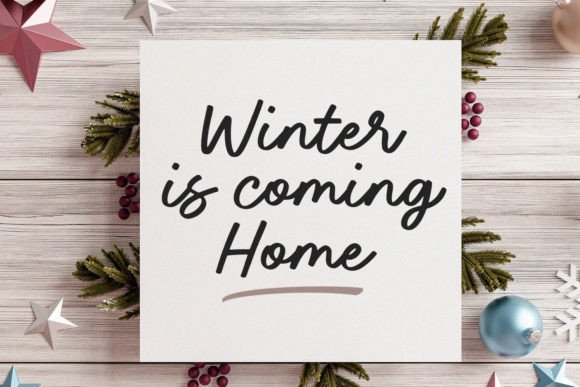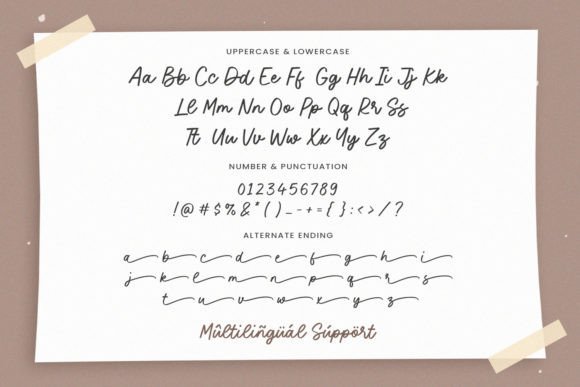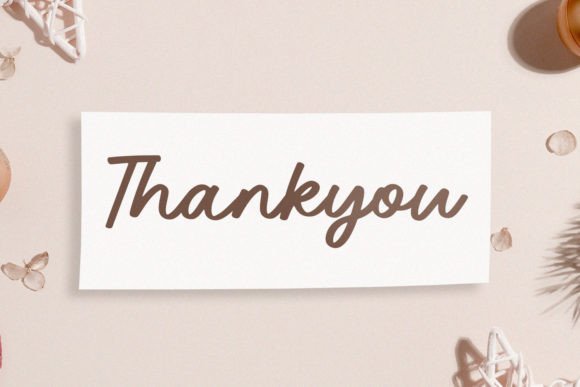
The Bigbutter Font: A Handwritten Script to Sweeten Your Designs
Have you ever been in the middle of a design project, and suddenly, you’re stuck on finding the perfect font? I recall a recent experience where I was working on a branding project for a boutique bakery, and I just couldn’t find a font that captured the warmth and playfulness of their brand. That’s when I stumbled upon the Bigbutter font, and it was love at first sight! 😊
What Makes Bigbutter Special?
Bigbutter is a handwritten script font created with great care, perfect for product packaging, branding projects, magazines, social media, weddings, or just to express words above a background. This font is PUA encoded, which means you can access all of the glyphs and swashes with ease!
- ✨ Unique and playful handwritten style that’s perfect for creative projects
- ⚡️ Highly versatile and can be used for various design applications
- 💕 Beautifully crafted to add a touch of warmth and personality to your designs
While Bigbutter is an amazing font, there are a few minor quirks to be aware of:
- 🤔 Some users might find the font a bit too ornate for very minimalist designs
- ⚠️ May not be suitable for very small font sizes due to intricate details
The Story Behind Bigbutter
The Bigbutter font was crafted with love and care by a talented designer who aimed to create a unique, handwritten script that would add warmth and personality to any design project. Inspired by the imperfections and beauty of handwriting, Bigbutter is the perfect choice for designers looking to add a touch of whimsy to their work.
Q: Is Bigbutter suitable for body text or long-form content?
A: While Bigbutter is a beautiful font, it’s best suited for headlines, titles, or short-form content due to its ornate and decorative nature.